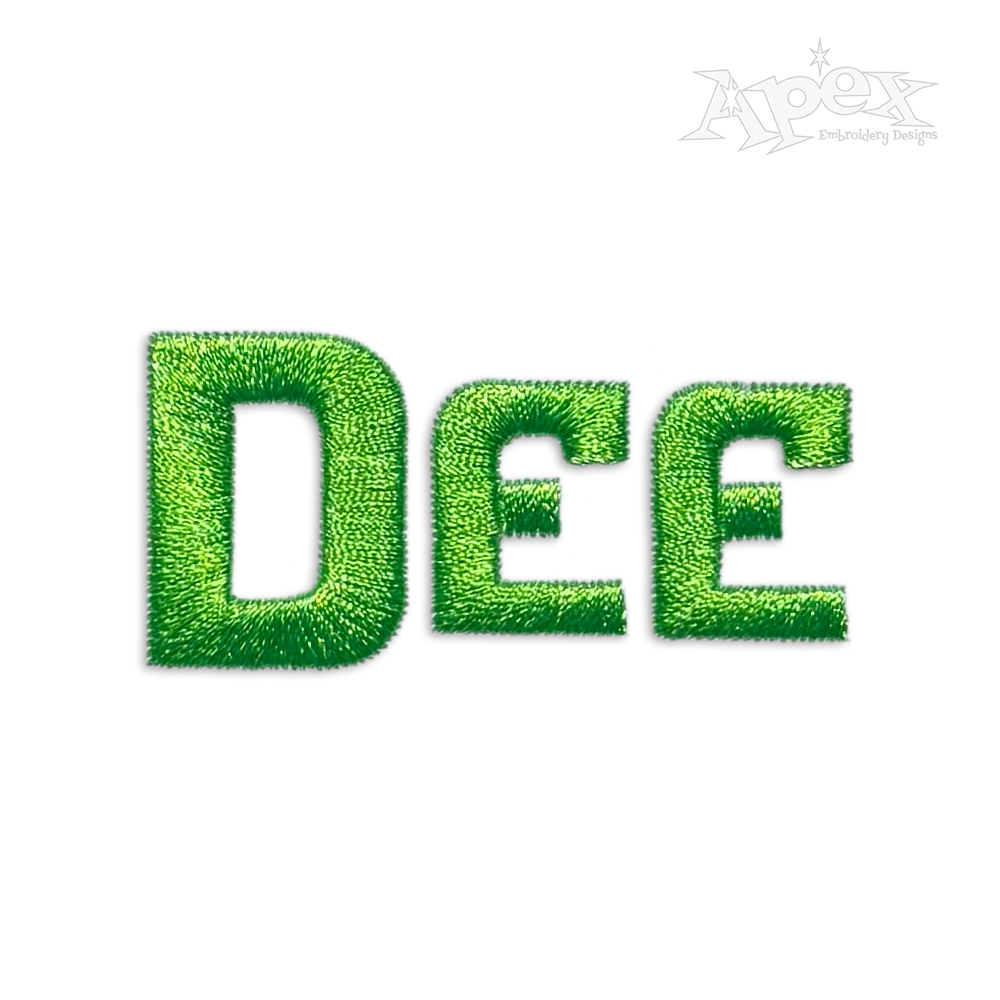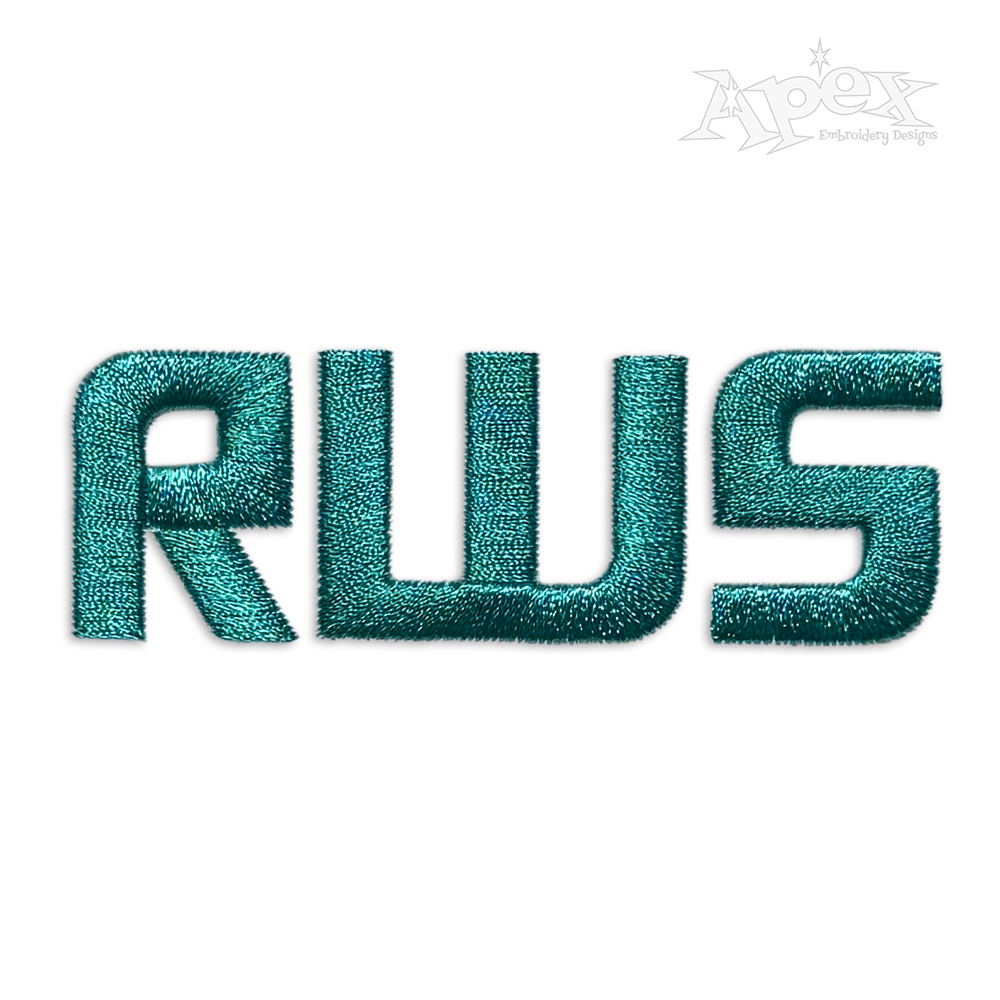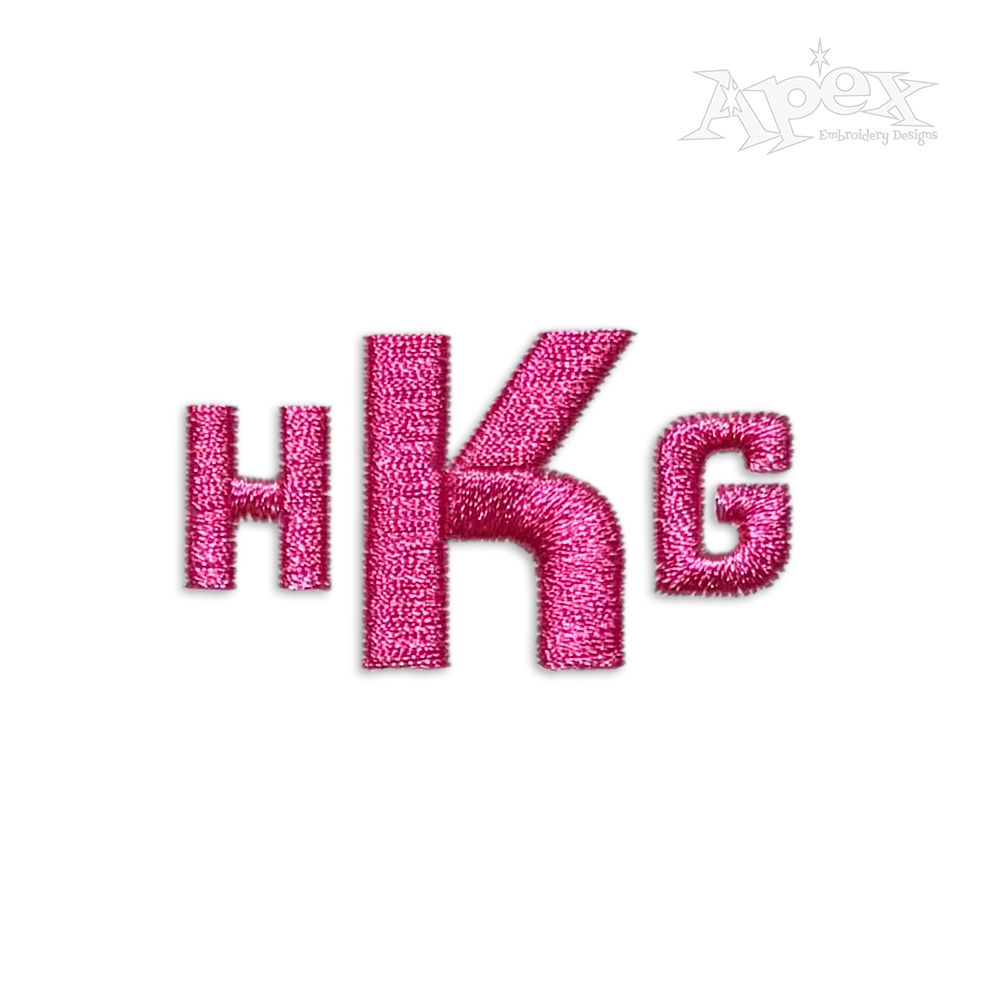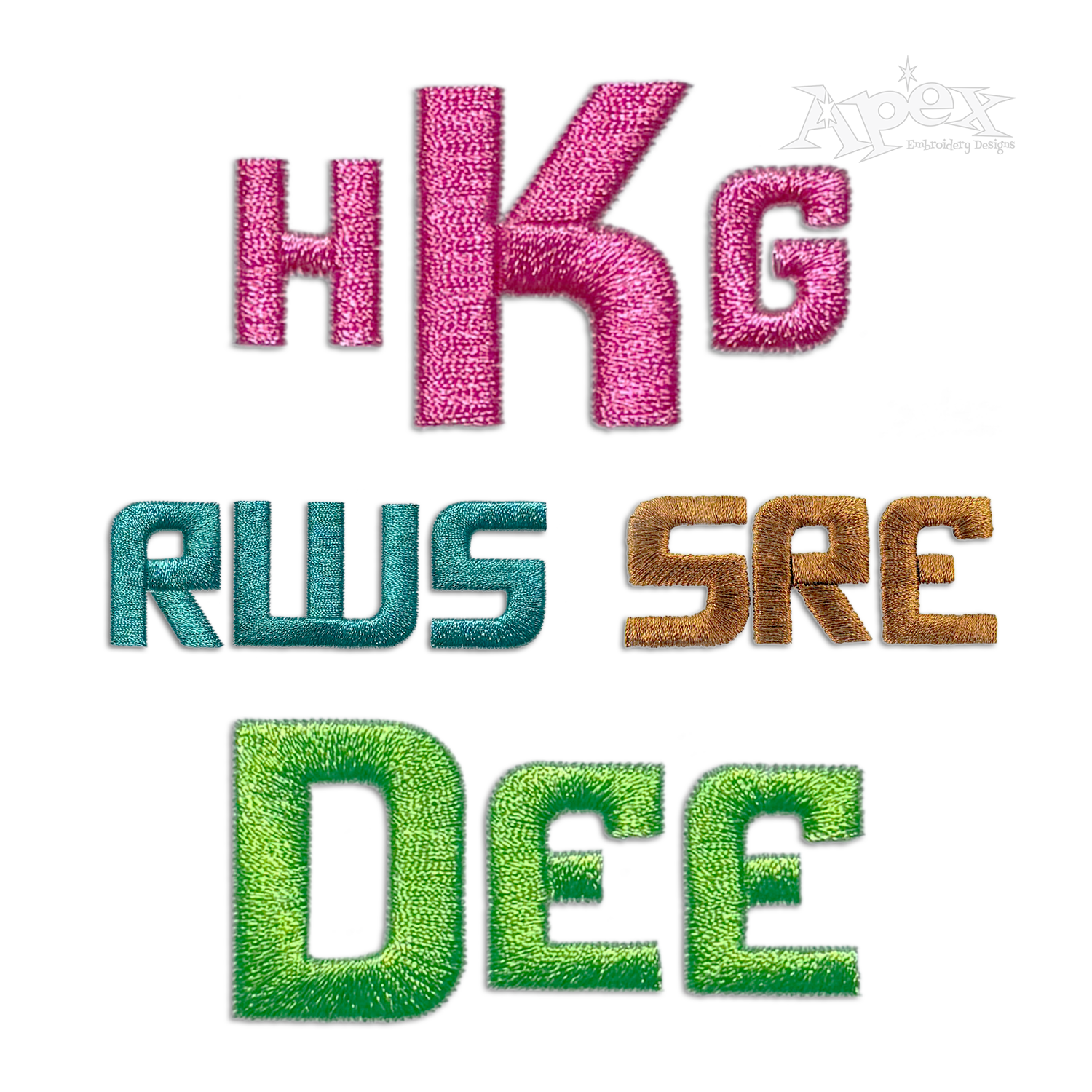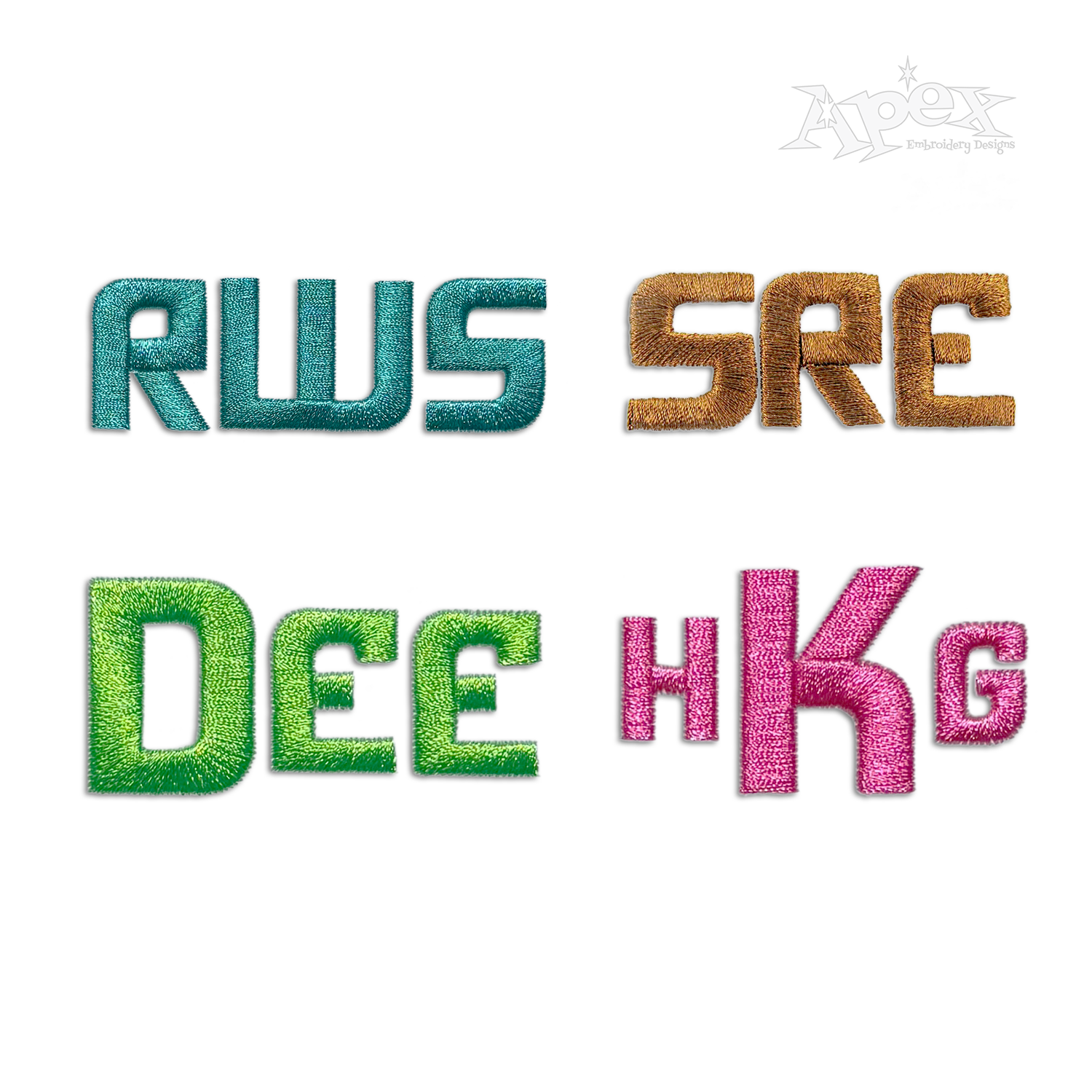
Sander Embroidery Font
Conceived with an eye for architectural balance and mid-century editorial poise, the Sander Embroidery Font delivers an unapologetically confident presence to personalized embroidery. When digitizing Sander, we set out to craft a robust, geometric block alphabet that avoids harshness, balancing crisp right angles with finely tuned proportions. Each character commands attention on the fabric, catching ambient light across broad, mirror-smooth satin columns. Whether destined for crisp linen cocktail napkins or structured canvas travel gear, this font brings a handsome, tailored finish that feels equally at home in coastal resort living and modern metropolitan penthouses.
The Sander collection is scaled to give you effortless versatility across projects of every scale, from refined personal accessories to bold statement totes. This typographic suite features 26 complete uppercase alphabet characters (A–Z) in three carefully calibrated heights:
- 1.5-inch – An immaculate, compact size designed for cuffs, pocket details, tailored collars, and personalized gifting.
- 2.5-inch – The quintessential monogram scale for bespoke table linens, guest towels, and lounge apparel.
- 3.5-inch – A dramatic, high-impact height engineered for heirloom pillows, beach bags, blanket throws, and heavy canvas gear.
Project Ideas for Sander Embroidery Font
The architectural weight and modern cadence of Sander make it a transformative choice across a wide spectrum of lifestyle, home, and apparel goods:
- Luxury Table Linens: Stitch bold, single-initial monograms on hemstitched dinner napkins and runners for a dinner table that radiates tailored sophistication.
- Heavy Canvas Totes & Weekenders: Utilize the 3.5-inch scale to create striking, durable luggage tags or oversized centered monograms on travel duffels.
- Bespoke Resort Wear & Spa Robes: Add clean, contemporary branding or personal initials to waffle-weave robes, terry poolside towels, and linen cabana shirts.
- Heirloom Bedding & Accent Pillows: Anchor a guest suite with substantial, three-letter monograms stitched along crisp percale shams or linen bolster cushions.
- Groomsmen & Executive Gifting: Personalize leather-accented dopp kits, garment bags, and wool stadium blankets with understated masculine elegance.
Because Sander features strong, solid geometry, placement should embrace its structured nature. For cocktail napkins, position a single initial diagonally across the lower corner, approximately 1.5 inches from the outer edge, allowing the block symmetry to contrast against delicate fabric edges. On canvas totes, centered placement in the top third of the bag creates a balanced, professional storefront aesthetic. For button-down shirts, robes, and lightweight outerwear, align the 1.5-inch character directly over the left chest pocket line to honor classic haberdashery traditions.
Sander Embroidery Font Craft & Letterform Details
Behind the clean lines of the Sander alphabet lies a deeply considered digitizing architecture. Modern block fonts present a unique challenge at the machine: without proper engineering, broad satin fields risk puckering the textile or pulling borders inward. To solve this, each letterform in Sander is constructed over an intricate foundation of directional underlay stitches that stabilize the fabric fibers before the top satin layer is laid down.
The outer satin stitches are angled with precision across every stem, crossbar, and terminal. This careful stroke routing not only prevents gaps at the corners, but also creates a radiant play of light across the thread surface as the finished piece moves. With intentional column widths that ensure clean edge-to-edge definition, Sander stitches out with tactile body, crisp edges, and a smooth, luxurious luster that endures through every laundering.